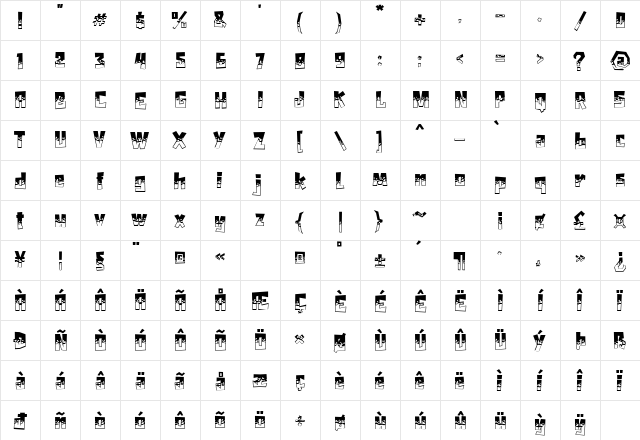
HYPER BLOCK Regular
| Foundry | Lettersiro |
| Designer | Muhammad Sirojuddin |
Design Context for HYPER BLOCK Typeface
HYPER BLOCK is a composed and adaptable typeface that performs quietly and consistently across a wide range of design contexts.